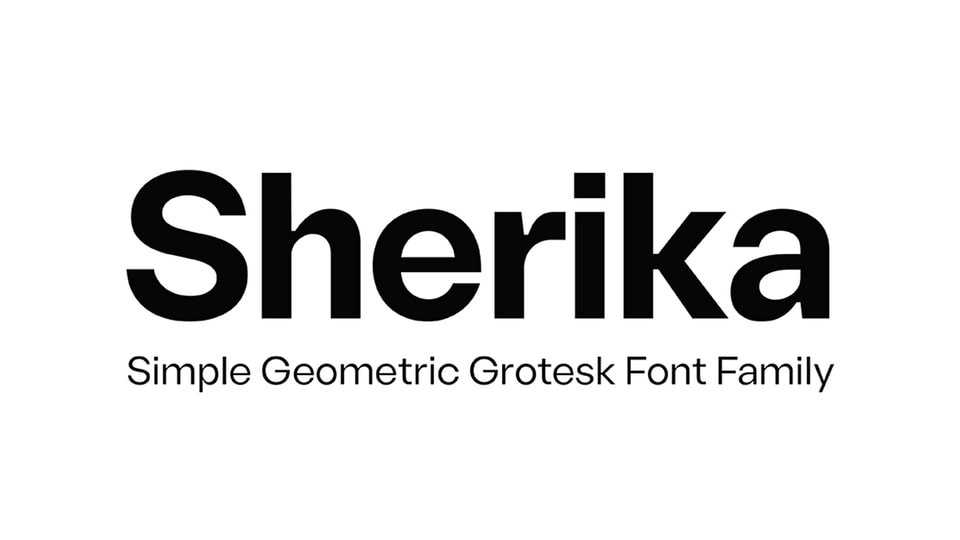
Download Sherika Sans font, a modern versatile sans serif typeface. No matter the topic, Sherika Sans font will be an incredible asset to your fonts’ library, as it has the potential to elevate any creation.
Designer: Akbartype